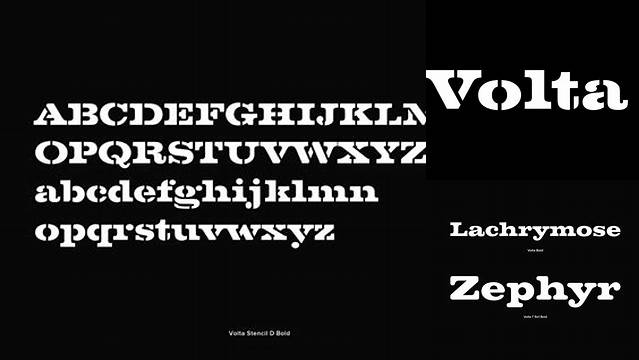
Volta Font: Free Download, Uses, And Design Tips
What is the Volta Font?
Before we jump into the free download part, let's first understand what the Volta font actually is. Knowing the font's history, style, and intended use can help you determine if it's the right fit for your project. The Volta font, generally speaking, possesses a modern and sophisticated aesthetic. It often features clean lines, geometric shapes, and a balanced structure. This makes it a versatile choice for a wide range of design applications. Think about logos, headings, body text, and even web design. Its clarity and legibility make it suitable for both print and digital media. Now, when we talk about "Volta font," it's important to understand that there might be variations or interpretations available. Different designers or foundries might have created their own versions under the same name or similar names. This means that the exact characteristics of the font – such as the weight (boldness), style (italic), and character set (supported languages) – can vary. So, guys, it's essential to always check the specific details of the font you're downloading to ensure it meets your needs. For example, some versions might be more suitable for headlines due to their bolder weights, while others might be better for body text because of their enhanced readability at smaller sizes. Furthermore, understanding the font's license is crucial. While you might find a "free download," the license dictates how you can legally use the font. Some free fonts are for personal use only, while others allow commercial use. Ignoring the license can lead to copyright infringement issues, so always read the fine print! Let's dig into more specific uses. Imagine you're designing a sleek, modern logo for a tech startup. A Volta-style font could be perfect for conveying innovation and professionalism. Or, if you're creating a website with a minimalist design, the font's clean lines would complement the overall aesthetic. Even in print materials like brochures or magazines, Volta can add a touch of elegance and sophistication. However, keep in mind that the font's suitability also depends on the context and target audience. A very geometric or stylized version might not be the best choice for a formal document or a website targeting an older demographic.
Volta Font: Design Inspiration and Use Cases
Now that you know where to find the font, how to install it, and how to use it, let's explore some design inspiration and use cases for the Volta font. Seeing the font in action can help you visualize how it might work in your own projects. The Volta font, with its modern and often geometric style, is a versatile choice for a wide range of design applications. It's particularly well-suited for projects that require a clean, contemporary, and sophisticated look. Let's start with logo design. A well-chosen font is crucial for creating a memorable and impactful logo. Volta's clean lines and balanced structure can make it an excellent choice for logos in various industries, especially tech, finance, and design. Imagine a tech startup with a logo featuring a bold Volta font, conveying innovation and reliability. Or a financial services company using a slightly lighter weight of Volta to project a sense of trustworthiness and professionalism. For websites and web design, Volta can be used effectively in both headings and body text. Its legibility makes it suitable for long-form content, while its modern aesthetic can enhance the overall visual appeal of the website. Consider using a bolder weight of Volta for headings to create a strong visual hierarchy, and a regular weight for body text to ensure readability. In print materials like brochures, flyers, and posters, Volta can add a touch of elegance and sophistication. Its versatility allows it to work well in both large and small sizes, making it suitable for various design elements. Think about using Volta for the main headline of a poster, paired with a complementary sans-serif font for the body text. Beyond logos, websites, and print materials, Volta can also be used in branding materials, presentations, and even social media graphics. Its adaptability makes it a valuable asset in any designer's toolkit. Let's look at some specific examples. Imagine a branding project for a new coffee shop. The logo could feature a stylized version of the Volta font, perhaps with some custom modifications to make it unique. The website could use Volta for headings and a classic serif font for body text, creating a balance between modern and traditional styles. The coffee cups and packaging could also feature the Volta font, reinforcing the brand's identity. Or consider a presentation for a marketing conference. Using a clean and professional font like Volta can help convey credibility and expertise. The slides could feature bold Volta headings, clear bullet points, and impactful visuals. The overall design would be clean and uncluttered, allowing the content to take center stage. When using Volta, it's important to consider the overall design context and the target audience. As we've mentioned before, font pairing is crucial. Experiment with different font combinations to find what works best for your project. Some fonts that often pair well with Volta include sans-serif fonts like Helvetica, Arial, and Open Sans, as well as serif fonts like Times New Roman and Georgia. Remember to also pay attention to the font's licensing. Make sure you have the necessary permissions to use the font in your intended applications, especially if you're using it for commercial purposes.
Volta Font Alternatives: Exploring Similar Styles
While the Volta font is a fantastic choice, sometimes you might need an alternative. Maybe you can't find a free version that suits your needs, or perhaps you're simply looking for a slightly different style. Whatever the reason, let's explore some Volta font alternatives and similar styles. When looking for alternatives, it's helpful to first identify the key characteristics of the Volta font that you like. As we've discussed, Volta typically has a modern, geometric, and clean aesthetic. It often features a balanced structure and good legibility. So, when searching for alternatives, you'll want to look for fonts that share these qualities. One great source of alternatives is Google Fonts. Google Fonts offers a vast library of free, open-source fonts, many of which have a similar style to Volta. Some Google Fonts that you might consider include Montserrat, Lato, Open Sans, and Roboto. Montserrat is a geometric sans-serif font with a clean and modern look. It has a similar structure to Volta and is highly legible. Lato is another popular sans-serif font that's known for its clean lines and friendly appearance. Open Sans is a classic sans-serif font that's widely used for both web and print. It's highly versatile and legible, making it a good choice for body text. Roboto is a modern sans-serif font that was designed by Google for use in Android. It has a slightly more technical feel than some of the other alternatives, but it's still a good option for projects that require a clean and contemporary look. Beyond Google Fonts, there are other free and commercial font options to consider. Adobe Fonts (part of the Adobe Creative Cloud subscription) offers a wide range of high-quality fonts, including many that are similar to Volta. Some commercial font foundries, like MyFonts and FontShop, also offer a vast selection of fonts. When choosing an alternative, consider the specific needs of your project. If you need a font for body text, legibility is crucial. Look for fonts with a clear and simple design that are easy to read at smaller sizes. If you need a font for headlines or logos, you have more flexibility to experiment with different styles. Consider fonts with bolder weights or unique design features. It's also important to think about font pairing. The font you choose as an alternative should work well with the other fonts in your design. As we've mentioned before, it's often a good idea to pair a display font (a font designed for headlines) with a more neutral sans-serif font for body text. Experiment with different font combinations to find what works best for your project. Finally, don't be afraid to try something new! Exploring different font options can help you discover unique styles and create more visually interesting designs. Using a font management tool can be helpful when experimenting with different fonts. Font management tools allow you to easily activate and deactivate fonts, preview fonts in different sizes and styles, and organize your font library. Some popular font management tools include FontBase and RightFont.